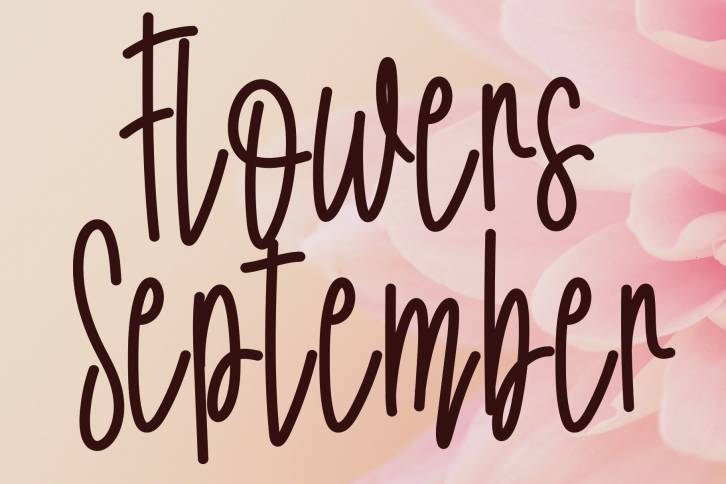
Flowers September is a thin, casual and flowing handwritten font. Its stylish alternates and ligatures make this font the perfect match for any project.